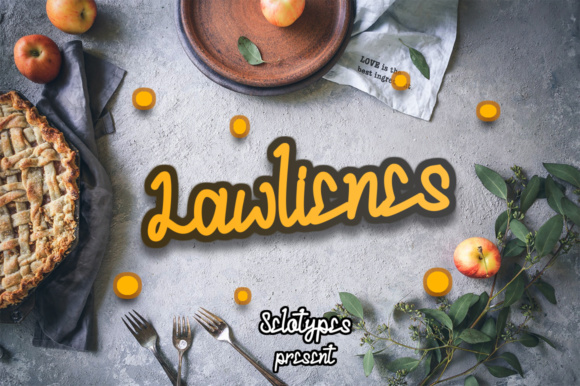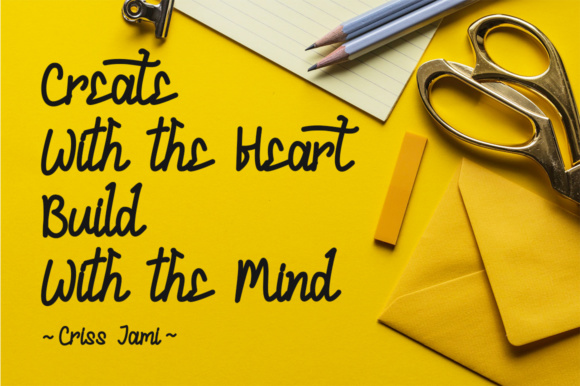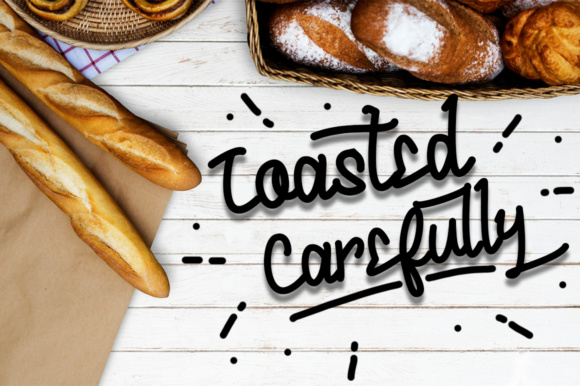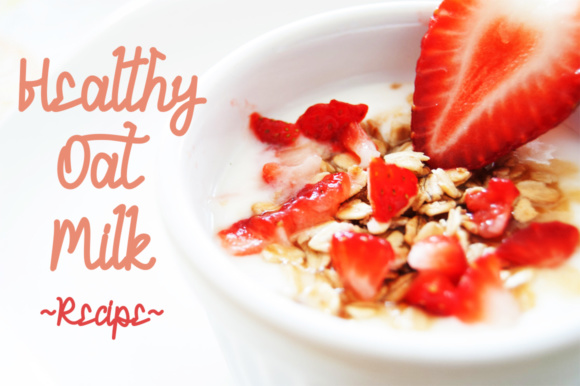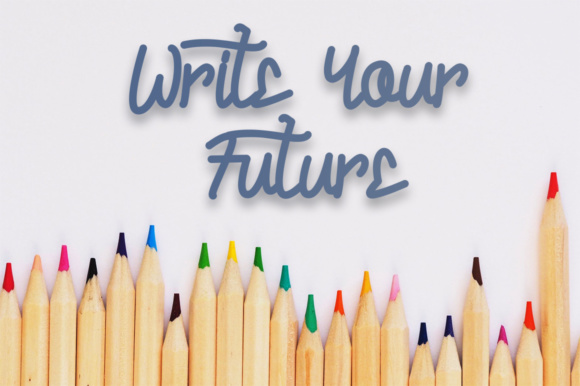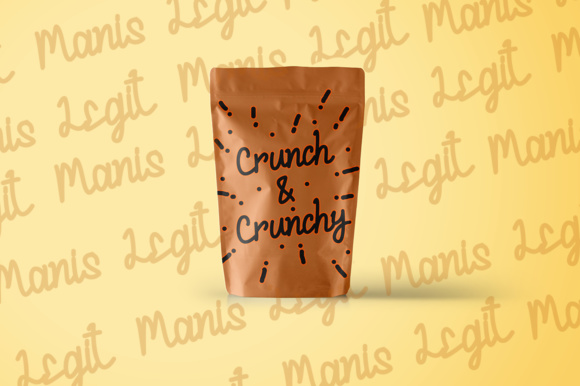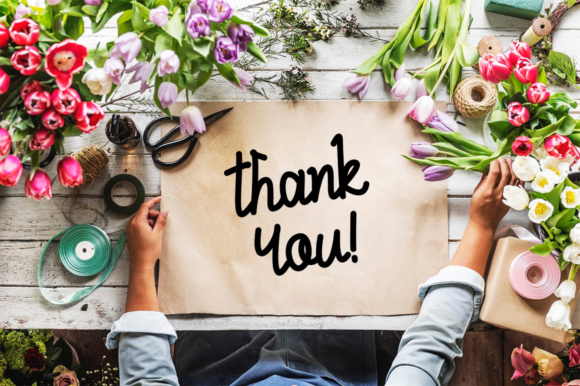
Lawlienes Font
About Lawlienes Font
The Lawlienes font is a playful, fun script typeface. It’s draws it’s inspiration from bold food packaging and lettering on toys.